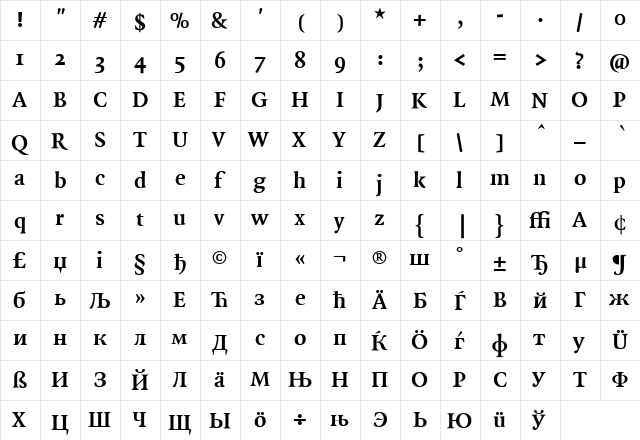
QuadraatCyrG Bold
Design Context for QuadraatCyrG Typeface
QuadraatCyrG is a composed and adaptable typeface that performs quietly and consistently across a wide range of design contexts. Its bold stroke weight gives it real presence on the page.